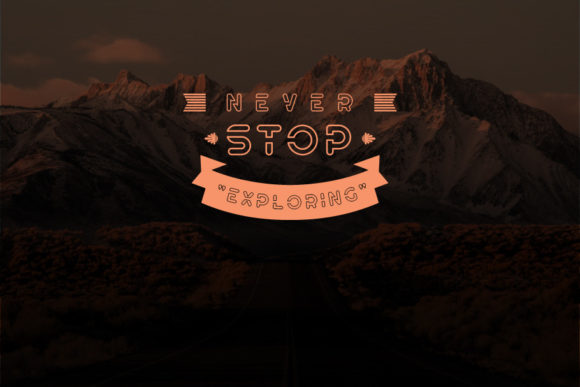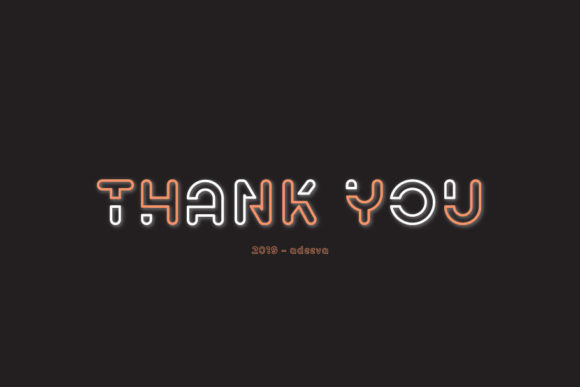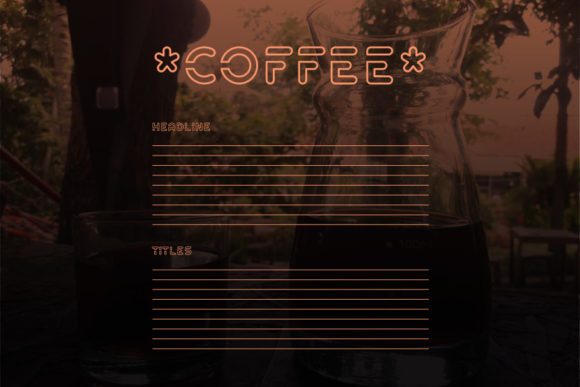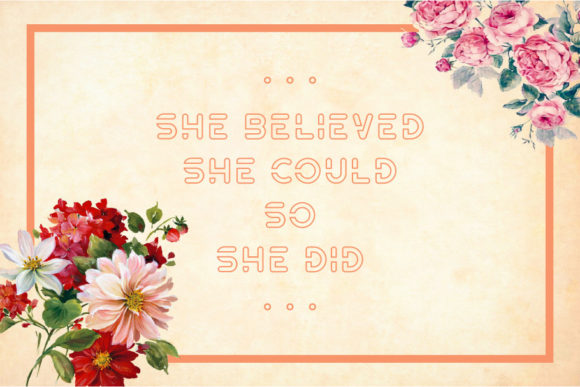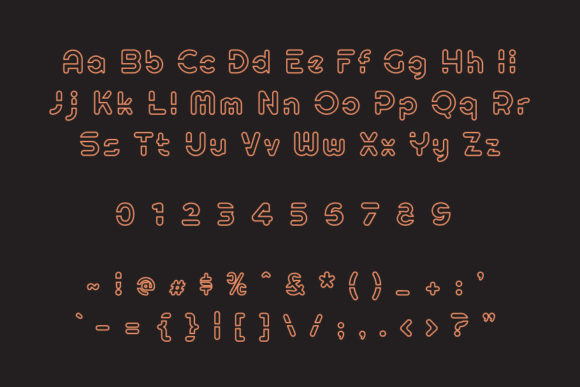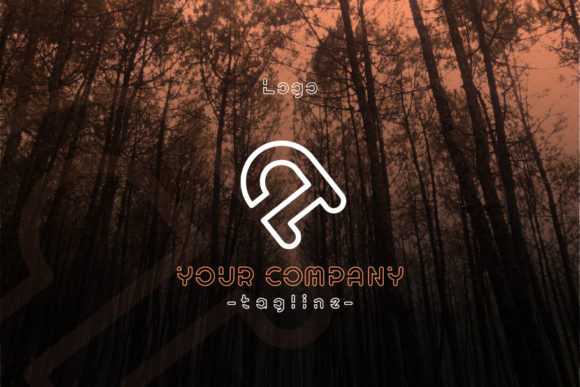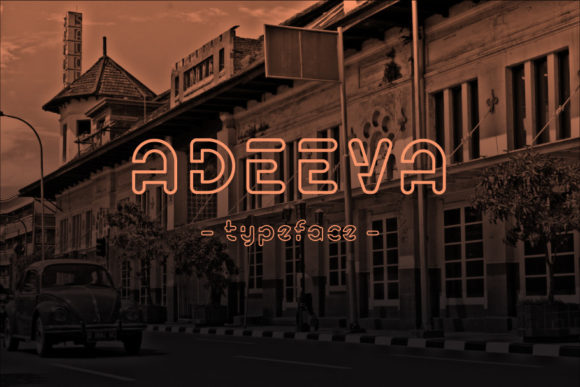
Adeeva Font: Elevate Your Designs with a Cool, Outlined Display Font
In the world of design, fonts play a crucial role in conveying the message and aesthetic of a project. Whether you’re working on a branding design, crafting labels, or brainstorming creative ideas, the right font can make all the difference. This is where Adeeva Font comes into play – a cool, outlined display font designed to add a trendy vibe to your creations. In this article, we’ll dive into the features, benefits, and uses of Adeeva Font, exploring how it can bring your designs to life.
What is Adeeva Font?
Adeeva Font is a modern, outlined display font that has been gaining popularity among designers and crafters. Its unique outline style gives it a distinctive look that can instantly elevate your designs. Whether you’re looking to create eye-catching labels, stylish branding designs, or any other project that requires a touch of trendiness, Adeeva Font is an excellent choice.
Key Features of Adeeva Font
- Cool and Trendy Design: Adeeva Font boasts a cool and trendy design that can instantly give your projects a modern makeover.
- Outlined Style: The font’s outlined style makes it stand out from traditional fonts, adding a unique touch to your designs.
- Versatility: Adeeva Font is versatile and can be used for a variety of projects, including labels, branding designs, posters, and more.
Benefits of Using Adeeva Font
Using Adeeva Font in your designs comes with several benefits:
- Enhanced Visual Appeal: The font’s unique design can significantly enhance the visual appeal of your projects, making them more engaging and attention-grabbing.
- Brand Differentiation: With Adeeva Font, you can create distinctive branding designs that set your brand apart from competitors.
How to Use Adeeva Font in Your Designs
Tips for Maximizing the Impact of Adeeva Font
To get the most out of Adeeva Font, consider the following tips:
- Pair with Complementary Fonts: Pair Adeeva Font with complementary fonts to create visual interest and hierarchy in your designs.
- Experiment with Colors: Don’t be afraid to experiment with different colors to find the perfect match for your design.
- Play with Sizes: Varying the size of Adeeva Font can add depth and emphasis to your designs.
- Keep it Simple: While Adeeva Font is designed to make a statement, keep your overall design simple to avoid visual overload.